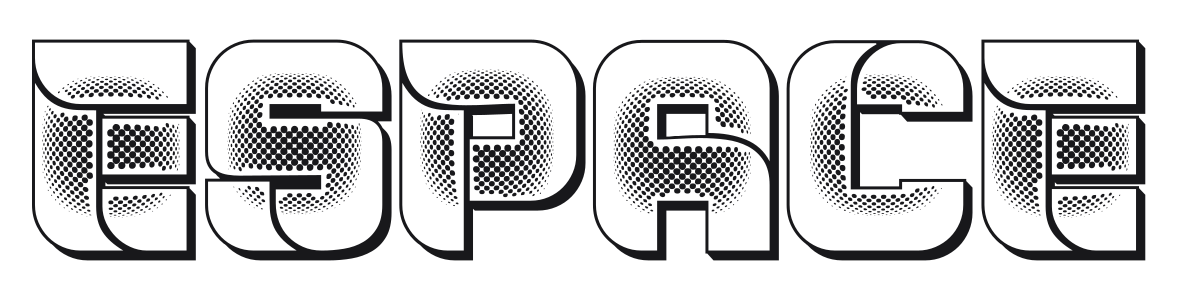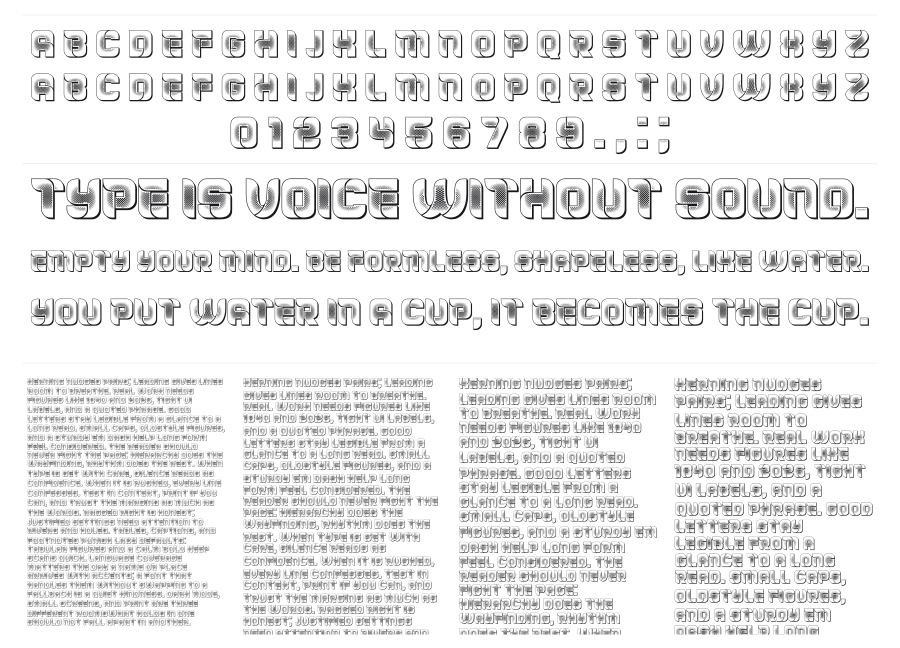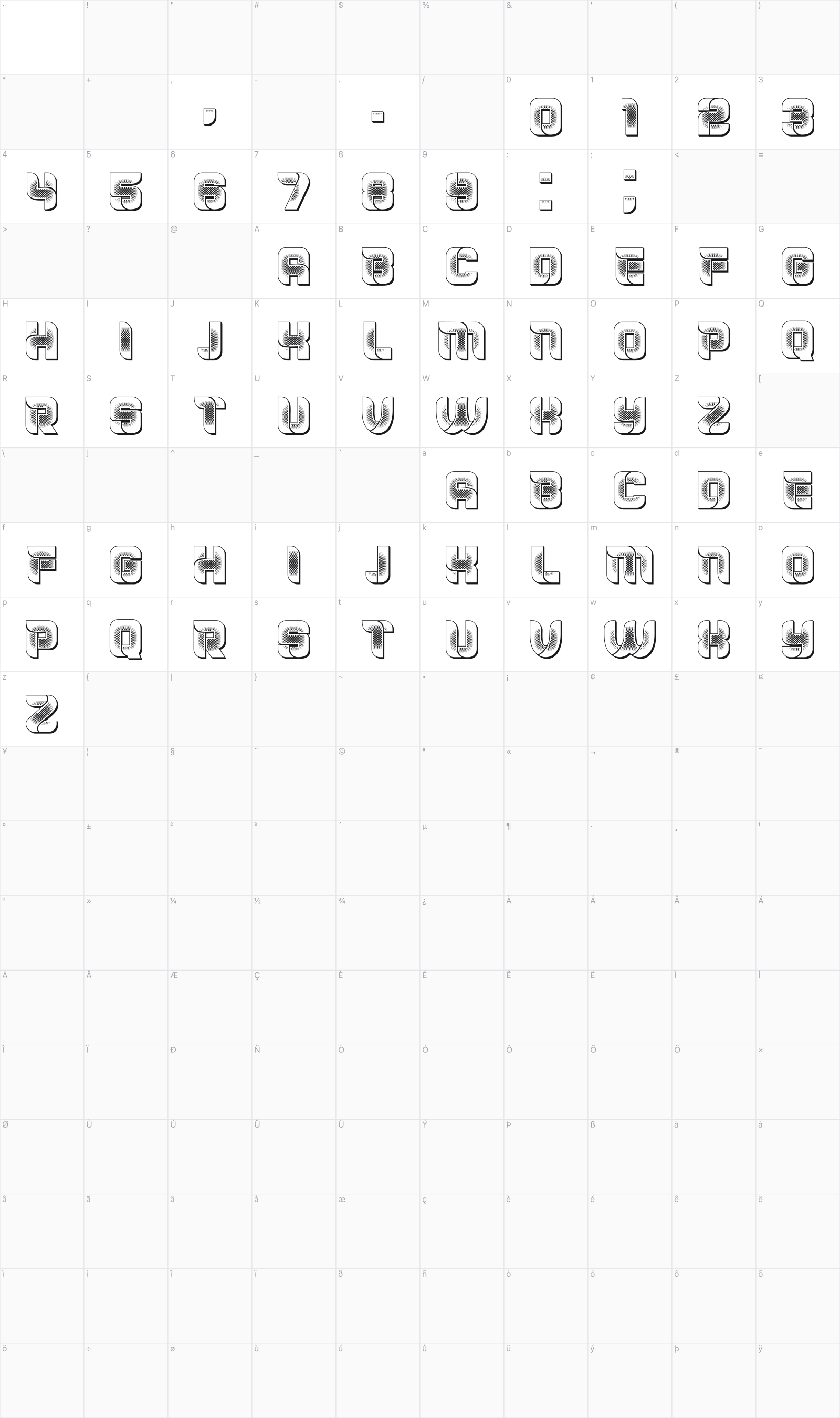
Espace
Espace is a bold, rounded display font dripping in 1970s pop-art nostalgia, built from chunky geometric squares with soft inflated corners. Each character layers a clean outline over a halftone dot fill and a stacked drop shadow, producing a deep retro three-dimensional effect. It reads loudly at large sizes, making it a natural choice for posters, album covers, and anything that needs to shout.